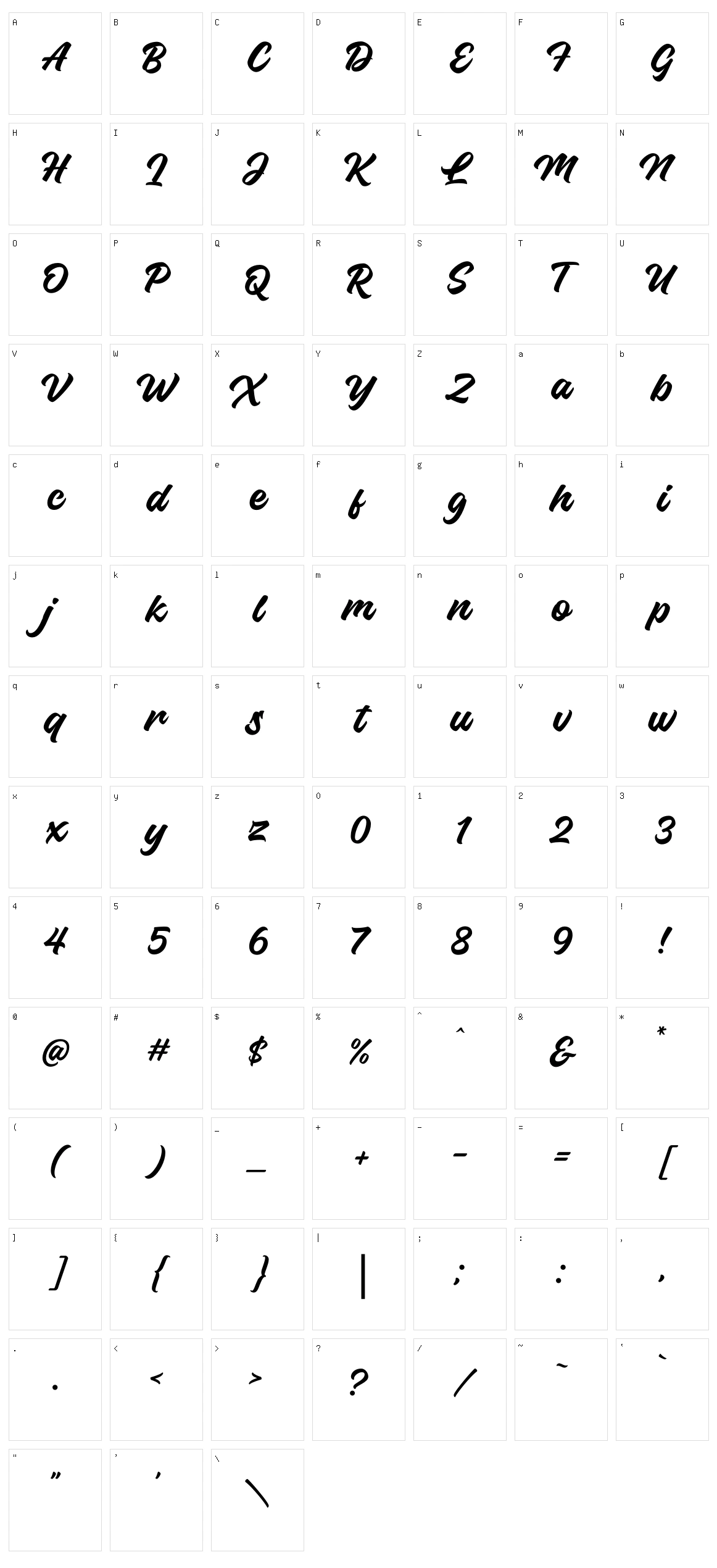
The free font Bhineka is carefully designed by HastaType, showcasing a thoughtful balance of creativity and usability and falls under the Script font style. When you download the ZIP file, it contains only 50.06 KB of font files, making it lightweight and quick to download. Please review the license details below to understand permitted usage and distribution rights. If license information is not available, we recommend using this font for personal projects only or contacting the author directly for commercial usage permissions.